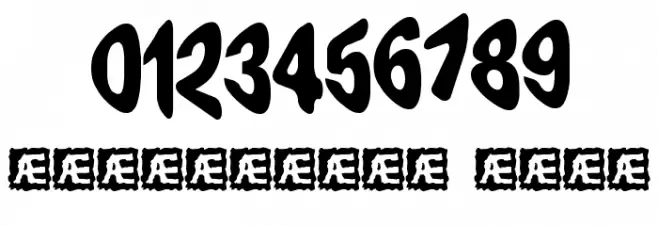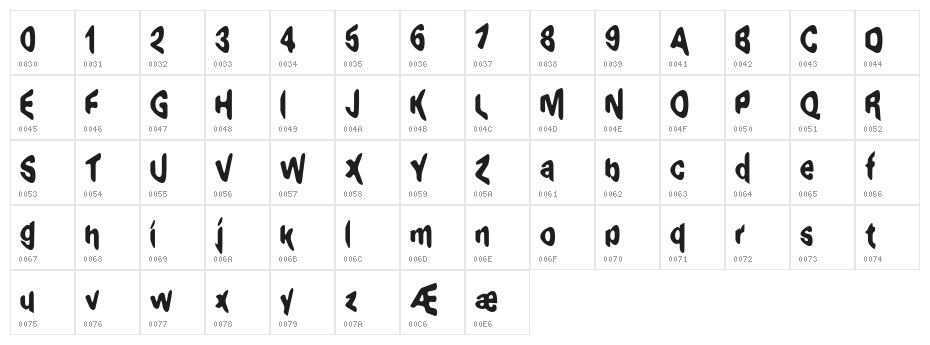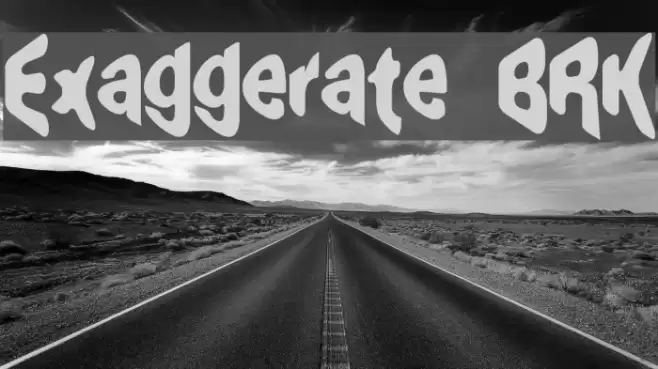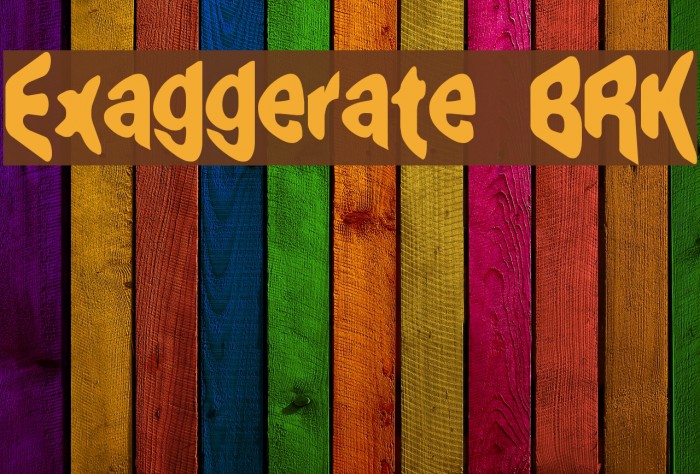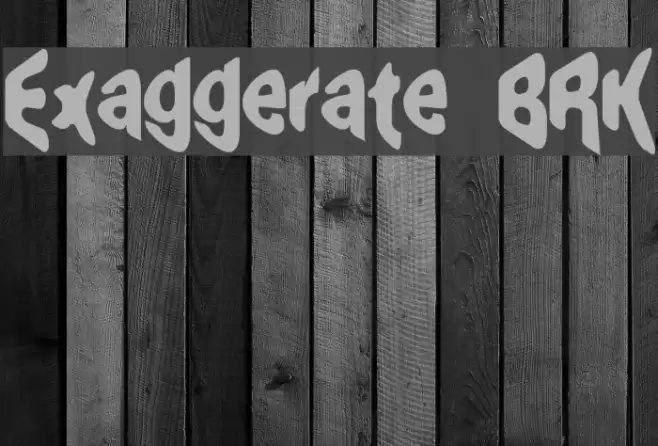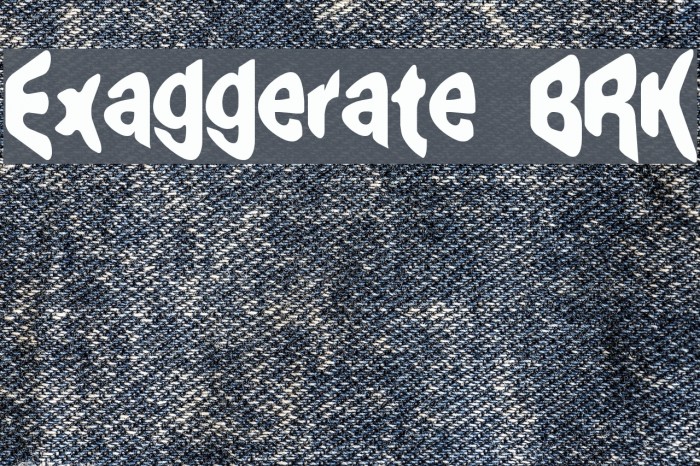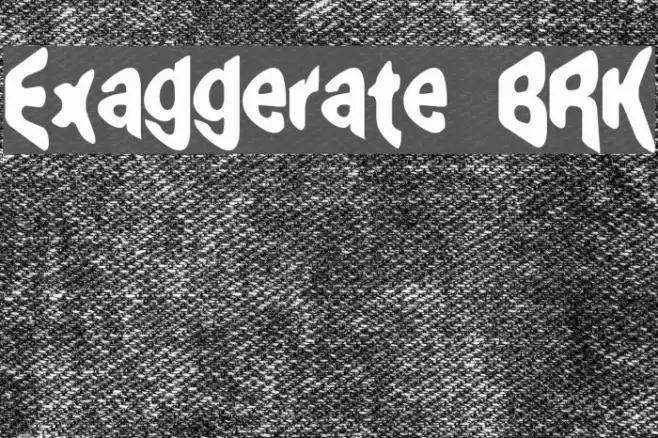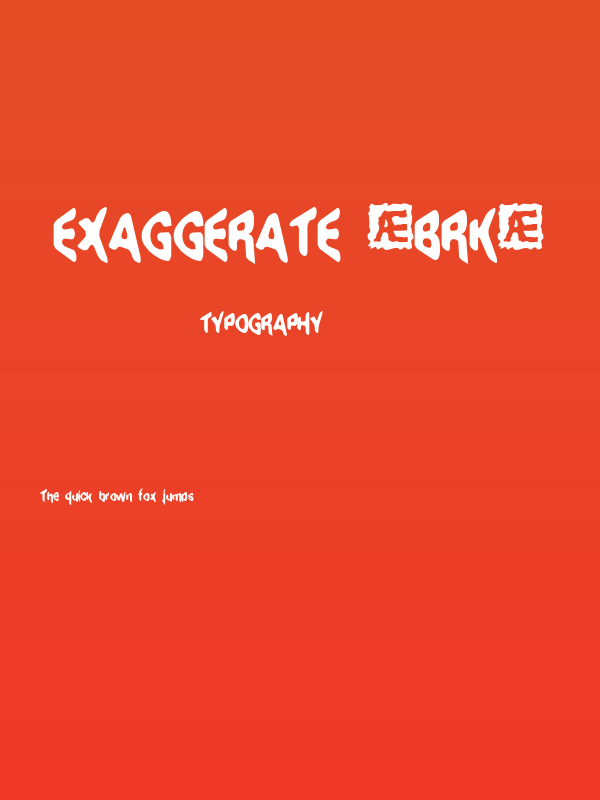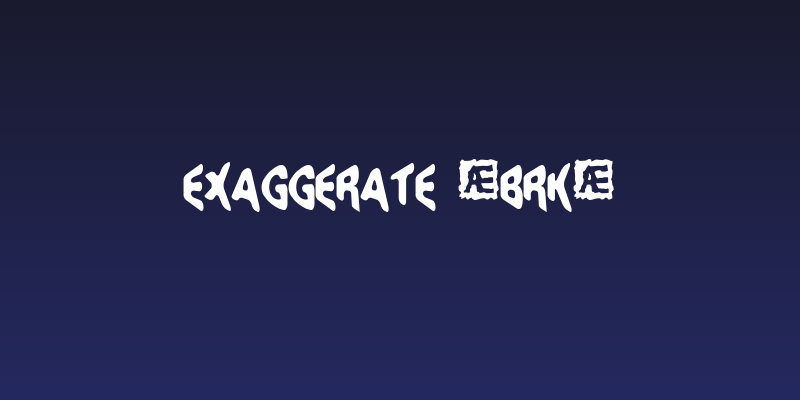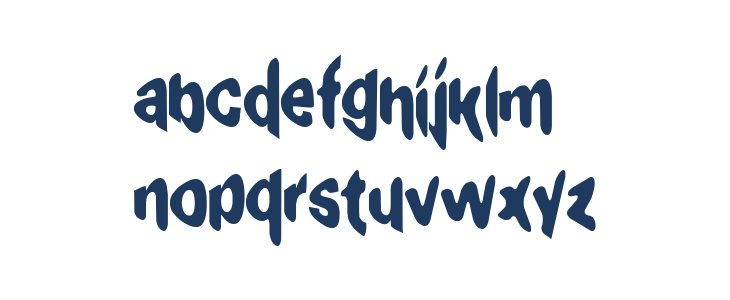
Exaggerate [BRK] Font
Exaggerate [BRK] Description
This font features bold, exaggerated strokes that create a playful and dynamic appearance. The characters are heavily stylized with a unique, almost cartoonish flair, making them stand out with their thick, rounded edges and irregular shapes. The uppercase and lowercase letters maintain a consistent style, with a slight slant that adds to the energetic feel. Numbers and special characters follow the same design principles, ensuring a cohesive look across all elements. The font's boldness and distinctive style make it ideal for attention-grabbing designs.
| Overall Style | Playful, Cartoonish, Dynamic |
| Proposed Projects | Ideal for children's books, comic titles, playful branding, and eye-catching posters. |